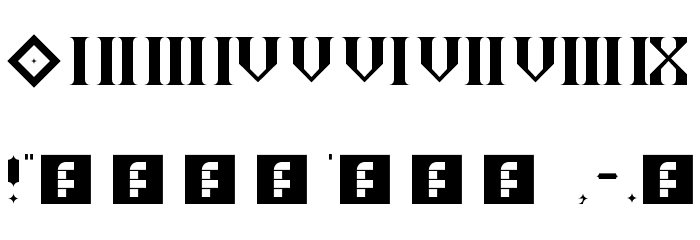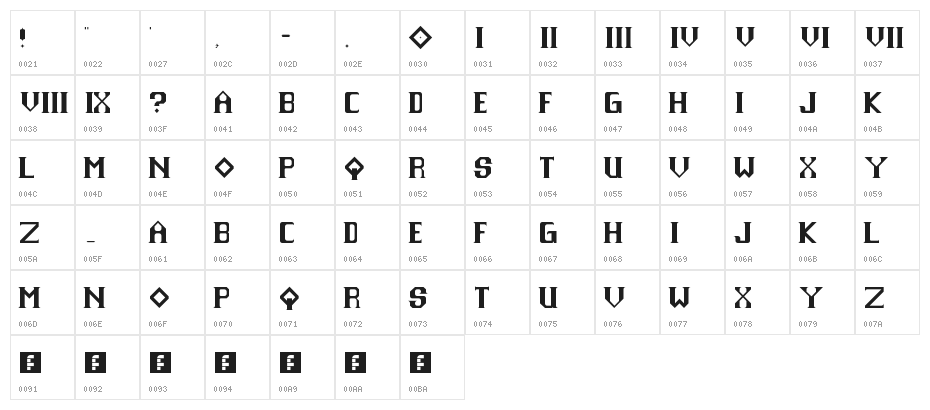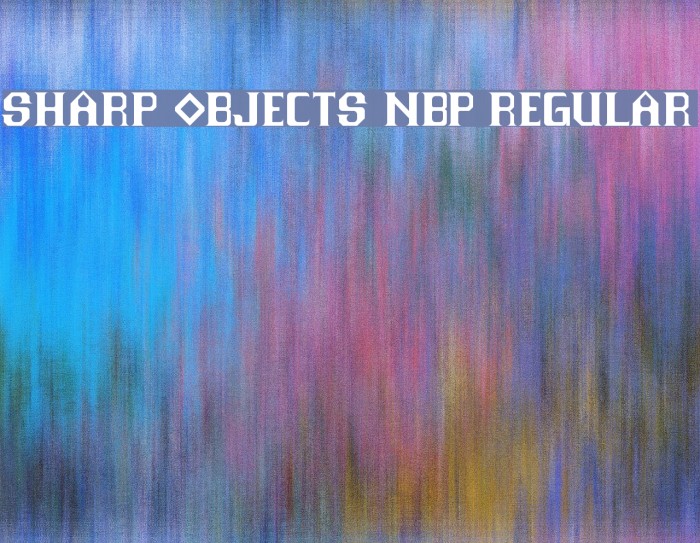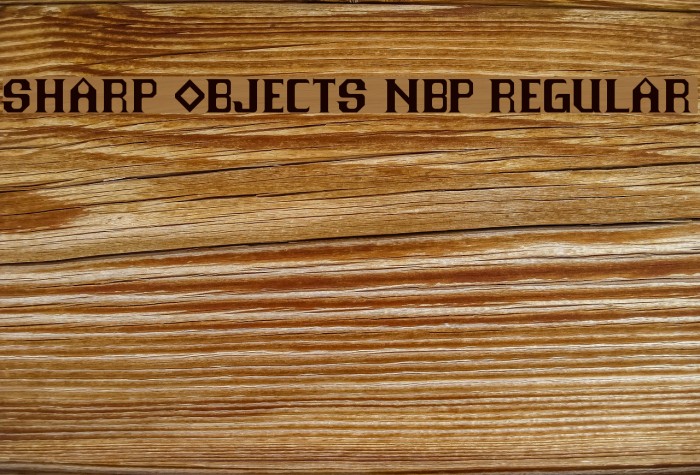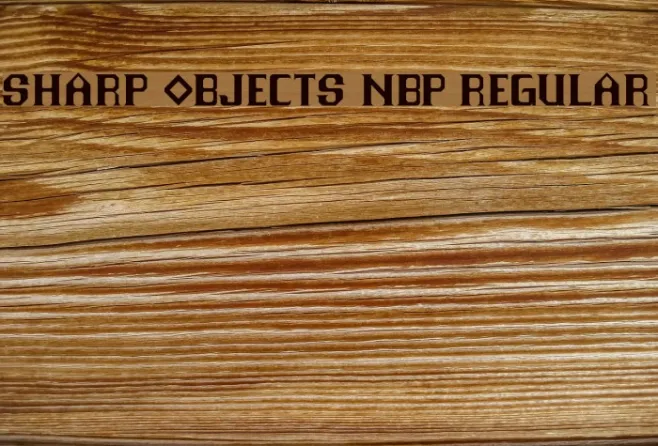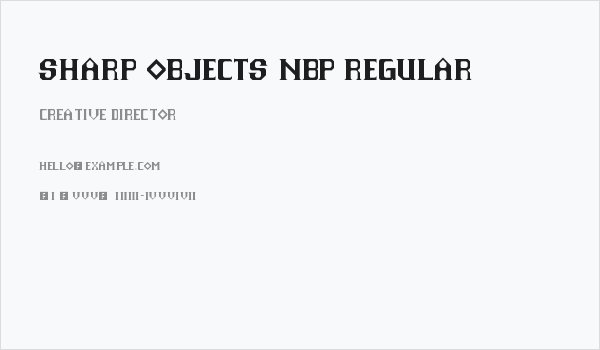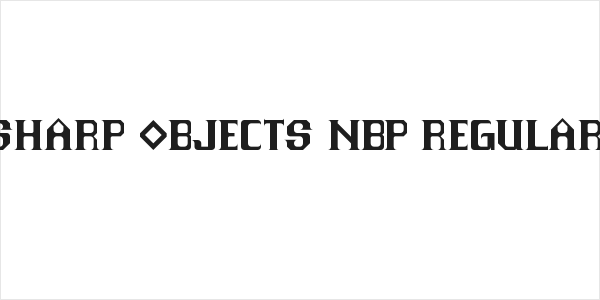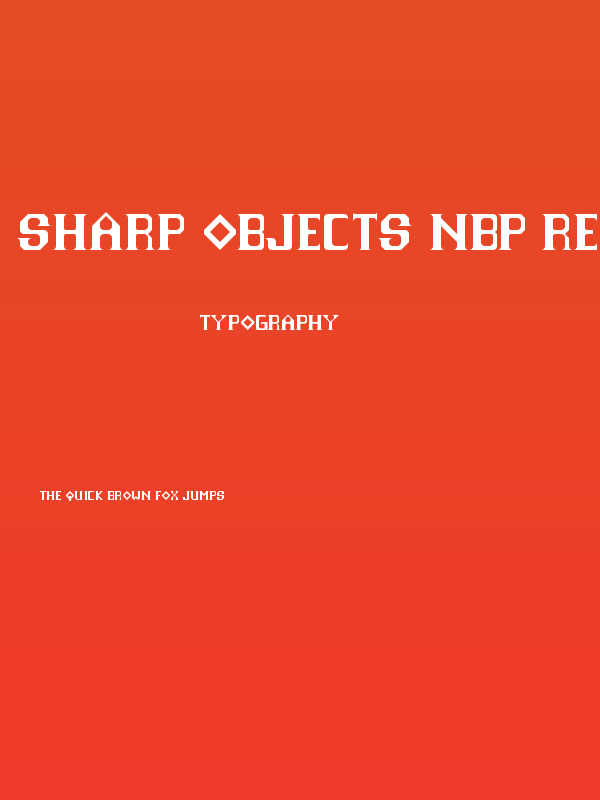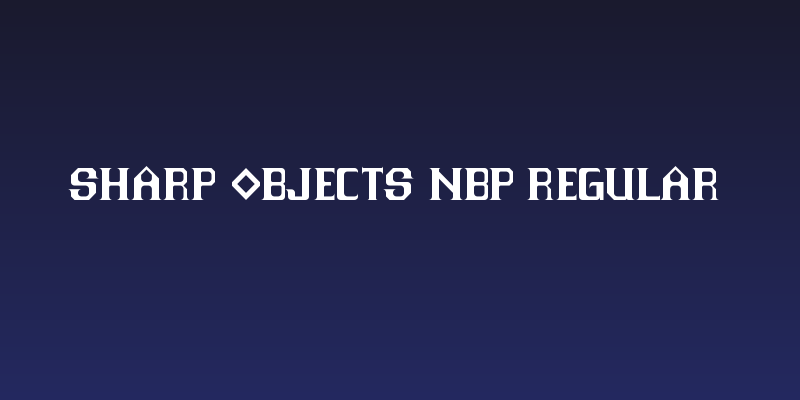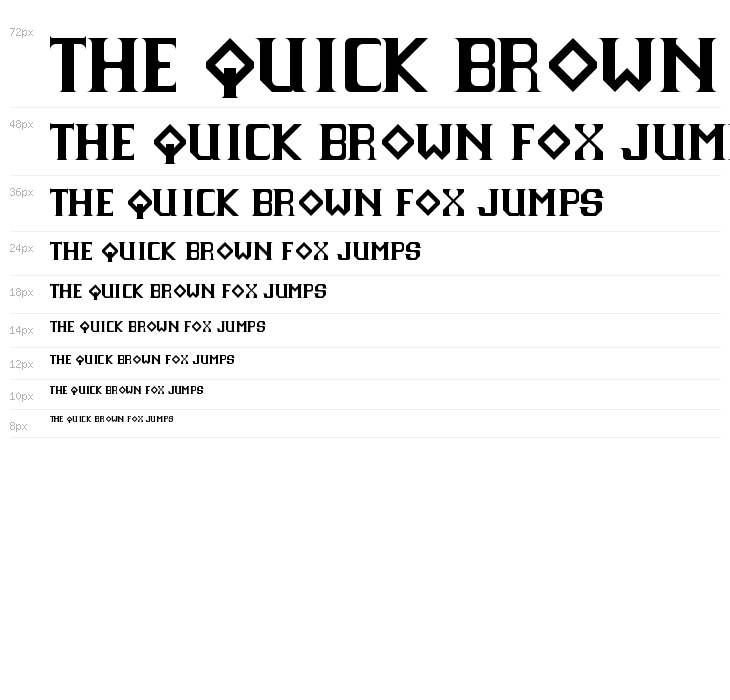
Sharp Objects NBP Regular Font
Sharp Objects NBP Regular Description
This font features a bold and striking design with sharp, angular edges that give it a modern and edgy appearance. The uppercase letters are particularly distinctive, with unique geometric shapes that create a sense of movement and energy. The lowercase letters maintain this angular style, ensuring consistency throughout the typeface. The numerals are equally bold, with a uniform thickness that enhances readability. Special characters are designed with the same attention to detail, making them stand out while remaining cohesive with the overall font style. This font is ideal for projects that require a strong visual impact.